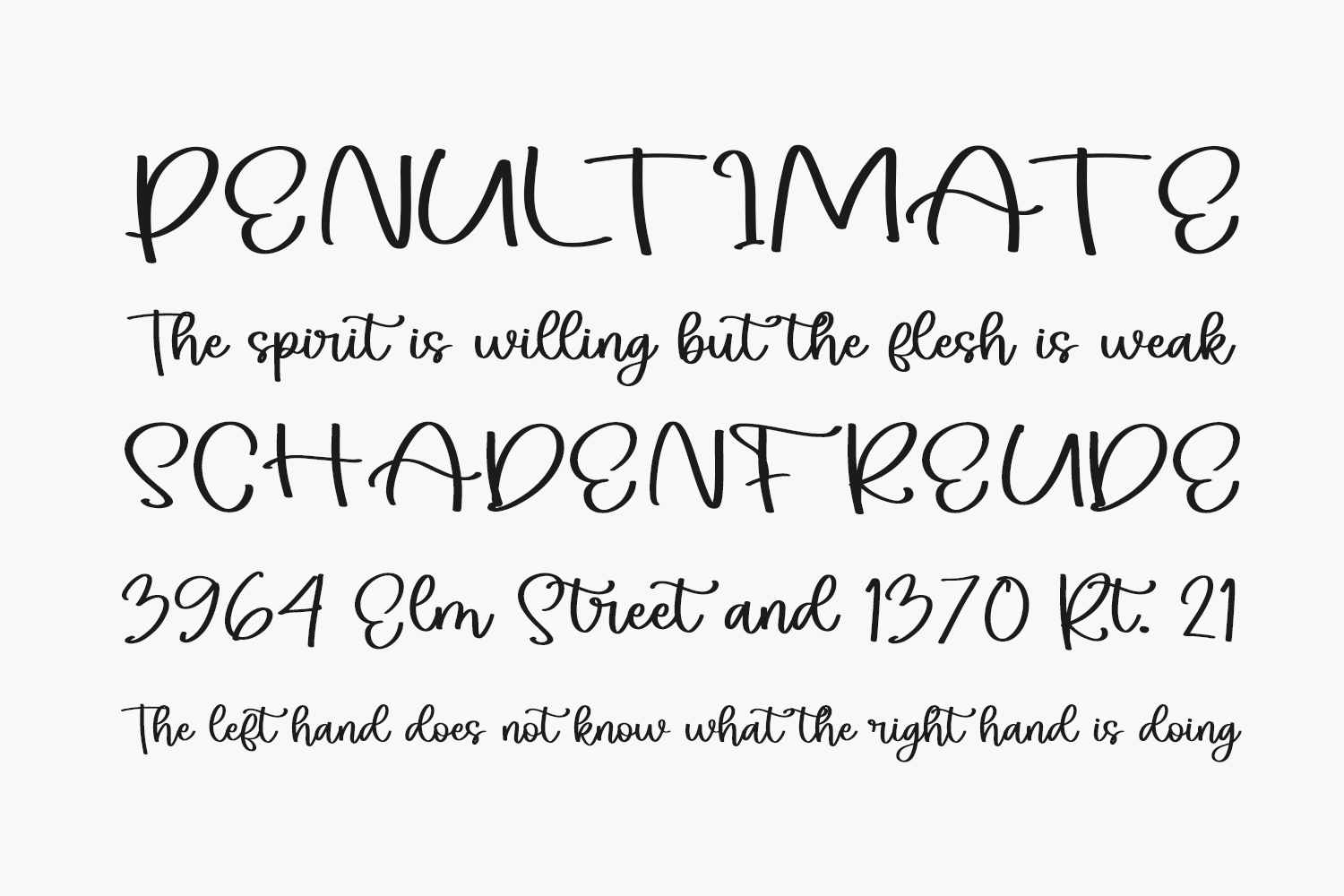
Catalisya Free Font is feels equally charming and elegant. It looks stunning on wedding invitations, thank you cards, quotes, greeting cards, logos, business cards and every other design which needs a handwritten touch. Catalisya Free Font is free for personal use only. Please purchase the full version for commercial use.
Designed by Erlina Graphic